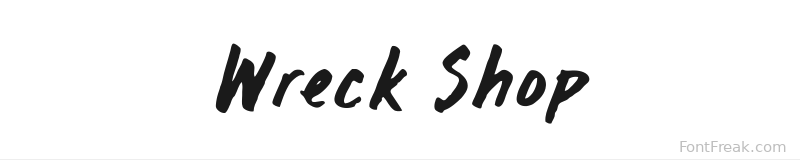
Wreck Shop
Wreck Shop by BLKBK Fonts is a distinctive display font that captures attention with its unique, hand-drawn aesthetic. This font features a casual yet energetic style, characterized by uneven stroke weights that create a lively, dynamic feel. The letters exhibit a combination of thick and thin lines, adding an appealing contrast that enhances readability while maintaining a playful vibe. The spacing between characters is thoughtful, allowing each letter to breathe while still conveying a cohesive look. Wreck Shop’s decorative elements, such as its slightly irregular edges, contribute to its informal charm, making it perfect for a variety of creative applications.
Ideal for graphic designers and small business owners alike, this font finds its best use in contexts where a fun, engaging tone is desired. It works wonderfully for movie posters that aim to evoke a sense of adventure or excitement. Additionally, Wreck Shop is an excellent choice for restaurant menus, particularly those that wish to reflect a casual or trendy atmosphere. The font also shines in event promotions and social media graphics, where capturing attention quickly is essential. For content creators looking to add a personal touch to their projects, Wreck Shop's playful nature makes it a great fit for blog headers or website elements.
What sets the Wreck Shop font apart is its ability to convey a sense of personality and authenticity, making it a standout choice for various design needs. Its freeware license means you can easily incorporate this versatile font into your projects without any cost, providing an accessible option for anyone seeking to elevate their design work. For those looking to unleash their creativity, the Wreck Shop font free download is an opportunity not to be missed.